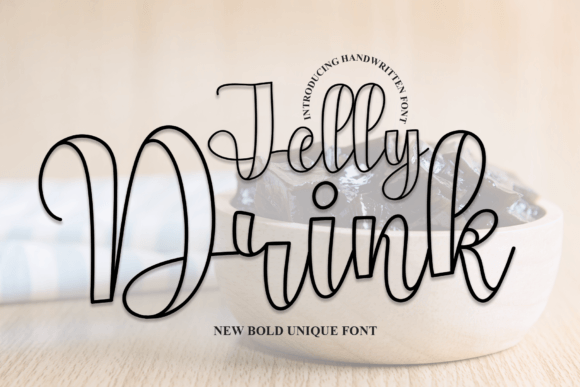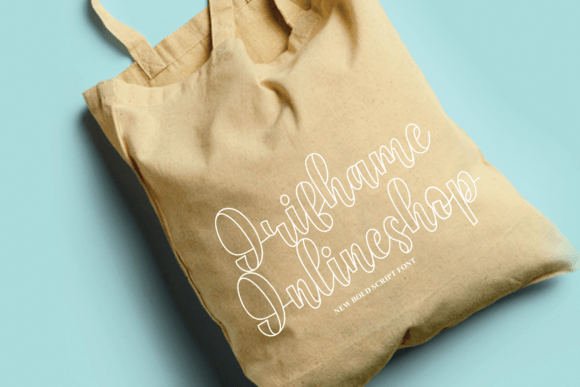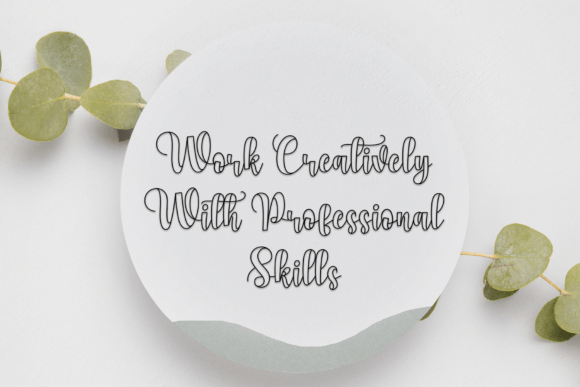
About Jelly Drink Font
Jelly Drink is an exquisite handwritten font, masterfully designed to become a true favorite. It maintains its classy calligraphic influences while feeling contemporary and fresh. Fall in love with it and bring your projects to the highest levels!